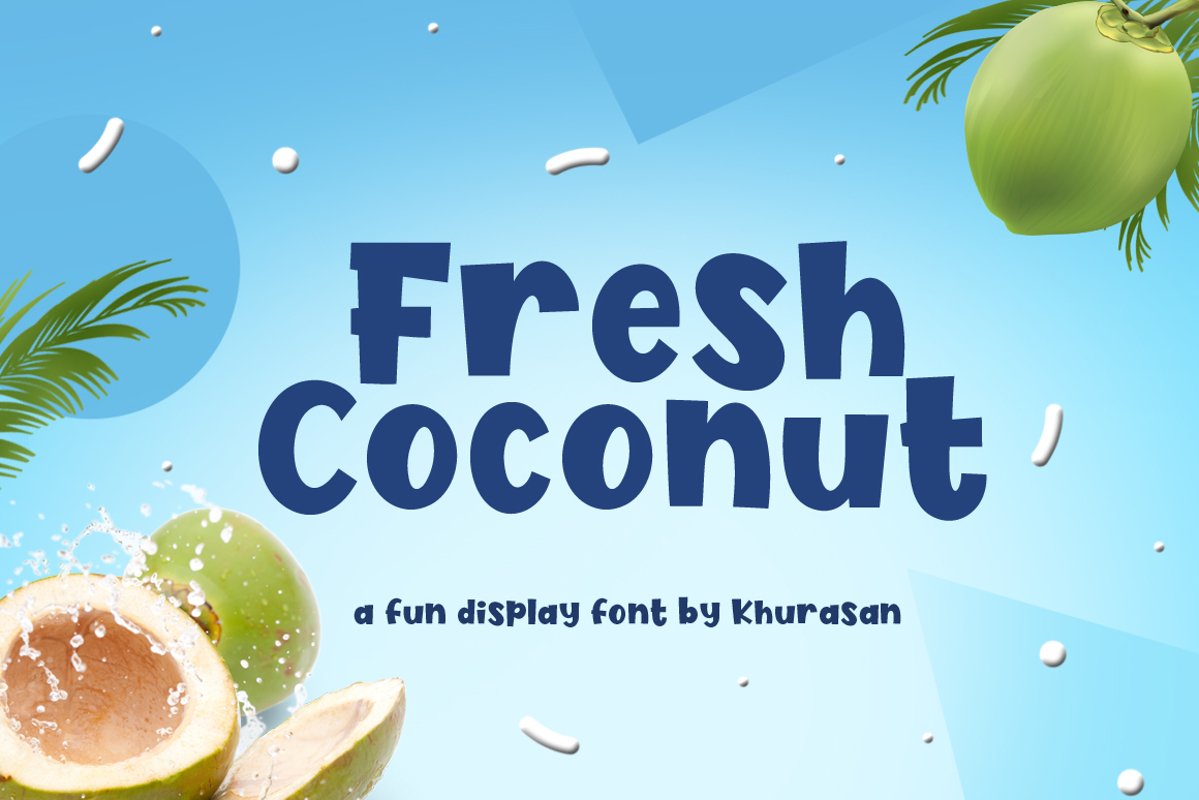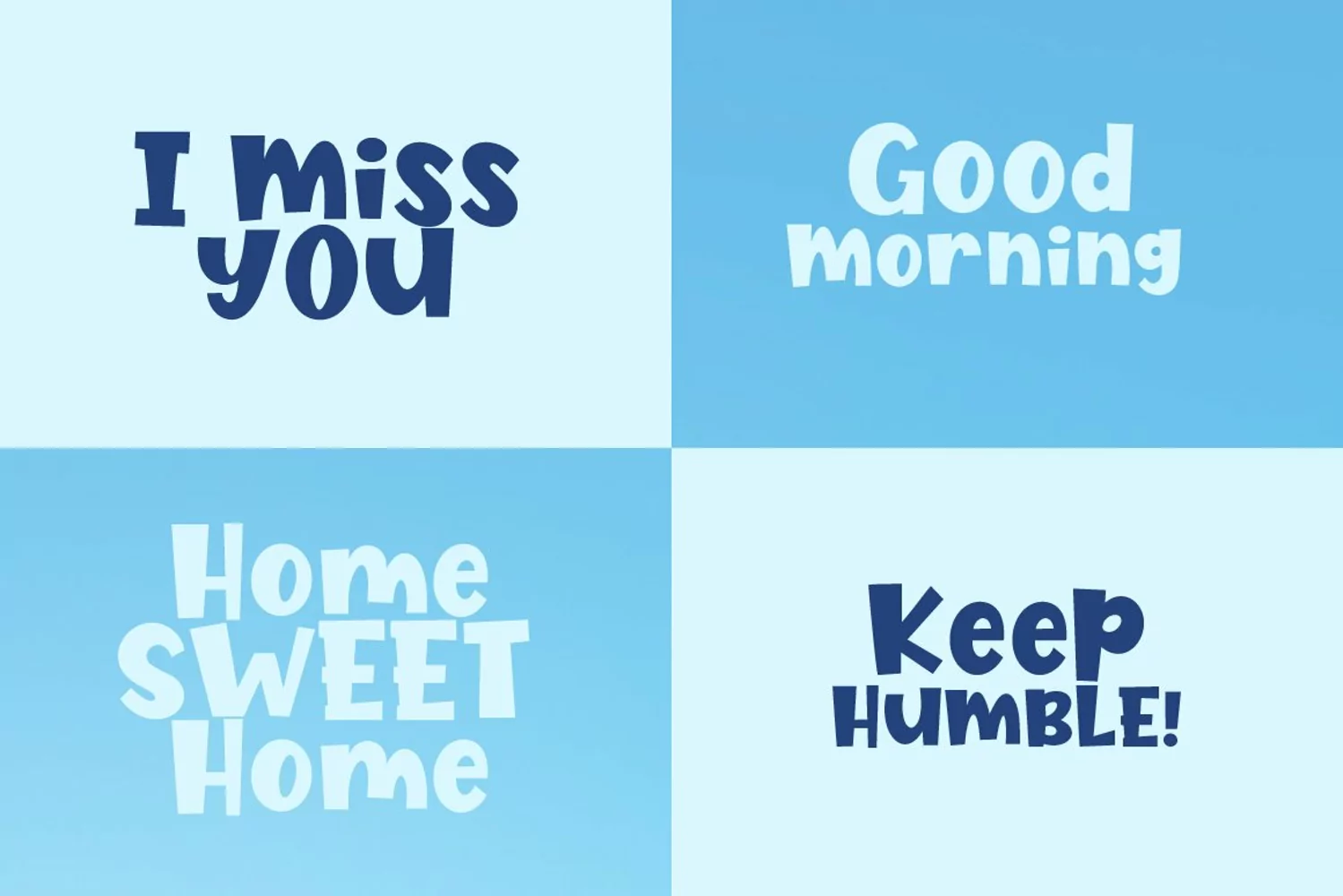
Introducing, Fresh Coconut font a fun display typeface with cheerful theme for your fun project. Fresh Coconut font support multilanguage. Fresh Coconut font suitable for logo, branding, greeting card, poster and any design that you create.